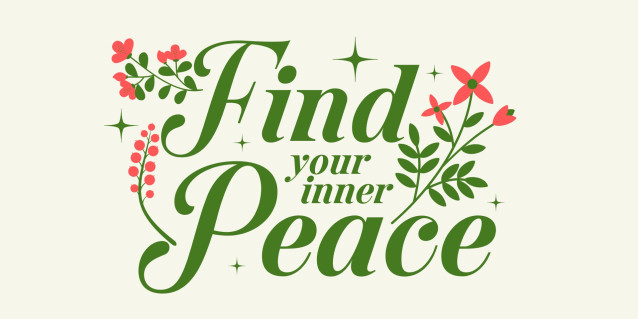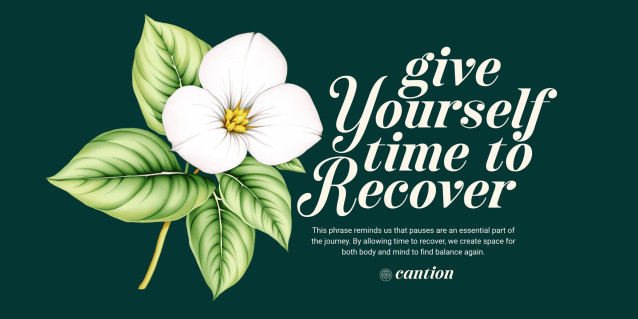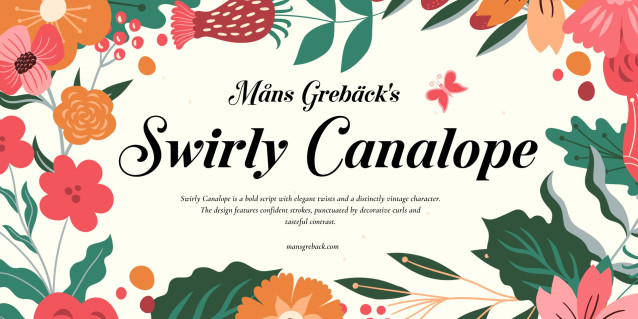
Swirly Canalope Font
Swirly Canalope Font is a bold script with elegant twists and a distinctly vintage character. The design features confident strokes, punctuated by decorative curls and tasteful contrast, resulting in a look that balances strength with flourish.
Its uppercase set sways with theatrical curves and grand entry strokes, perfect for ornamental purposes, while the lowercase letters stay grounded and legible, keeping the text cohesive. With a touch of old-fashioned signage and classic editorial titling, Swirly Canalope fits comfortably in both retro and contemporary creative settings.
The font is built with advanced OpenType functionality and guaranteed top-notch quality, containing stylistic and contextual alternates, ligatures and more automatic and manual features; all to give you full control and customizability.